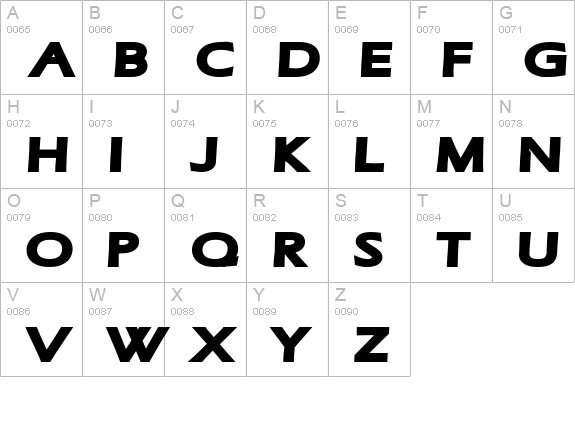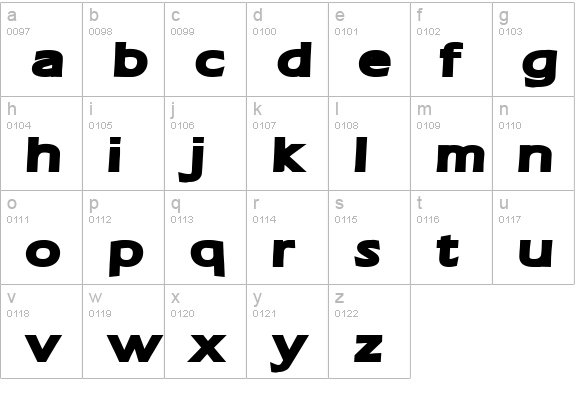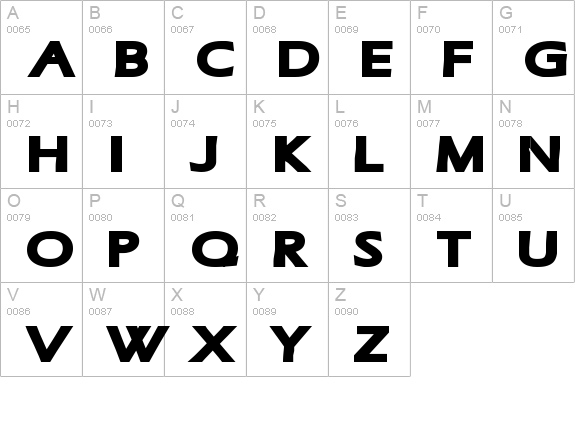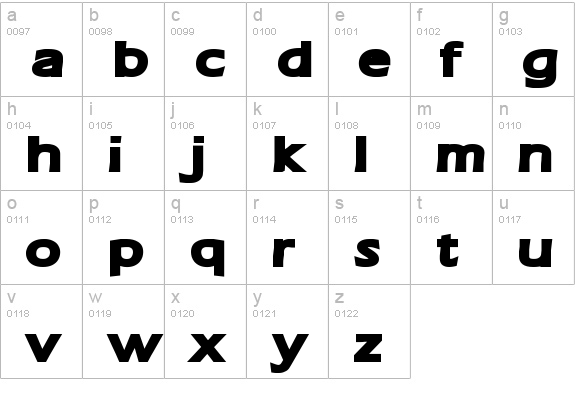
Ruffian bold Font Details
Ruffian bold is a strong, high-contrast variant in the Ruffian typeface family \xE2\x80\x94 well suited to headlines, attention-grabbing titles, and strong calls-to-action.
Ruffian bold font is a striking and powerful typeface that exudes confidence and boldness. Its thick strokes and sharp angles make a bold statement, perfect for adding impact to any design project. This versatile font is ideal for headlines, posters, logos, and more. The best part? Ruffian bold font is available for free download at FontsMarket.com. Simply visit the website to add this dynamic font to your collection and unleash its bold energy in your designs. Don't miss out on this opportunity to elevate your projects with the eye-catching Ruffian bold font, now freely accessible for all your creative needs.